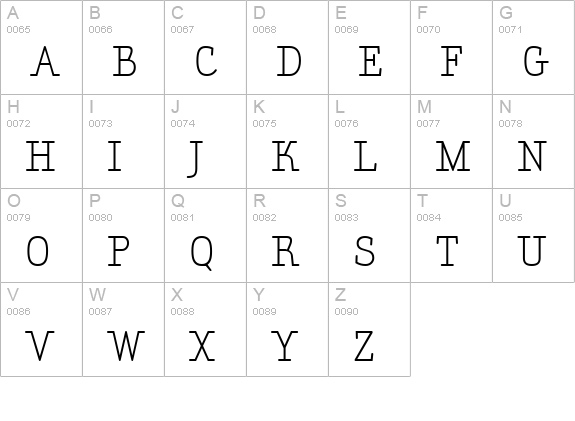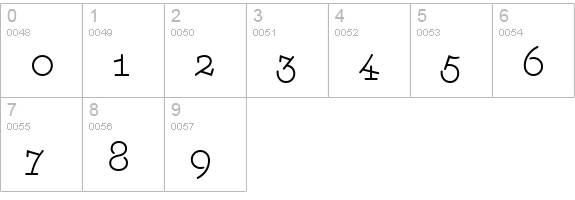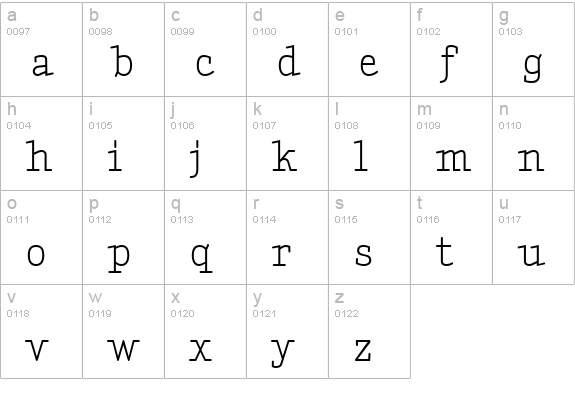
Introducing Aminta font, a modern and elegant typeface designed to make your designs stand out. With its sleek lines and sophisticated curves, Aminta exudes a sense of professionalism and style. This versatile font is perfect for a wide range of projects, from branding to editorial design. What's even better is that Aminta font is completely free to download at FontsMarket.com. You can elevate your designs without breaking the bank, thanks to this high-quality typeface. Don't miss out on the opportunity to enhance your projects with the timeless beauty of Aminta font. Download it today and let your creativity shine!